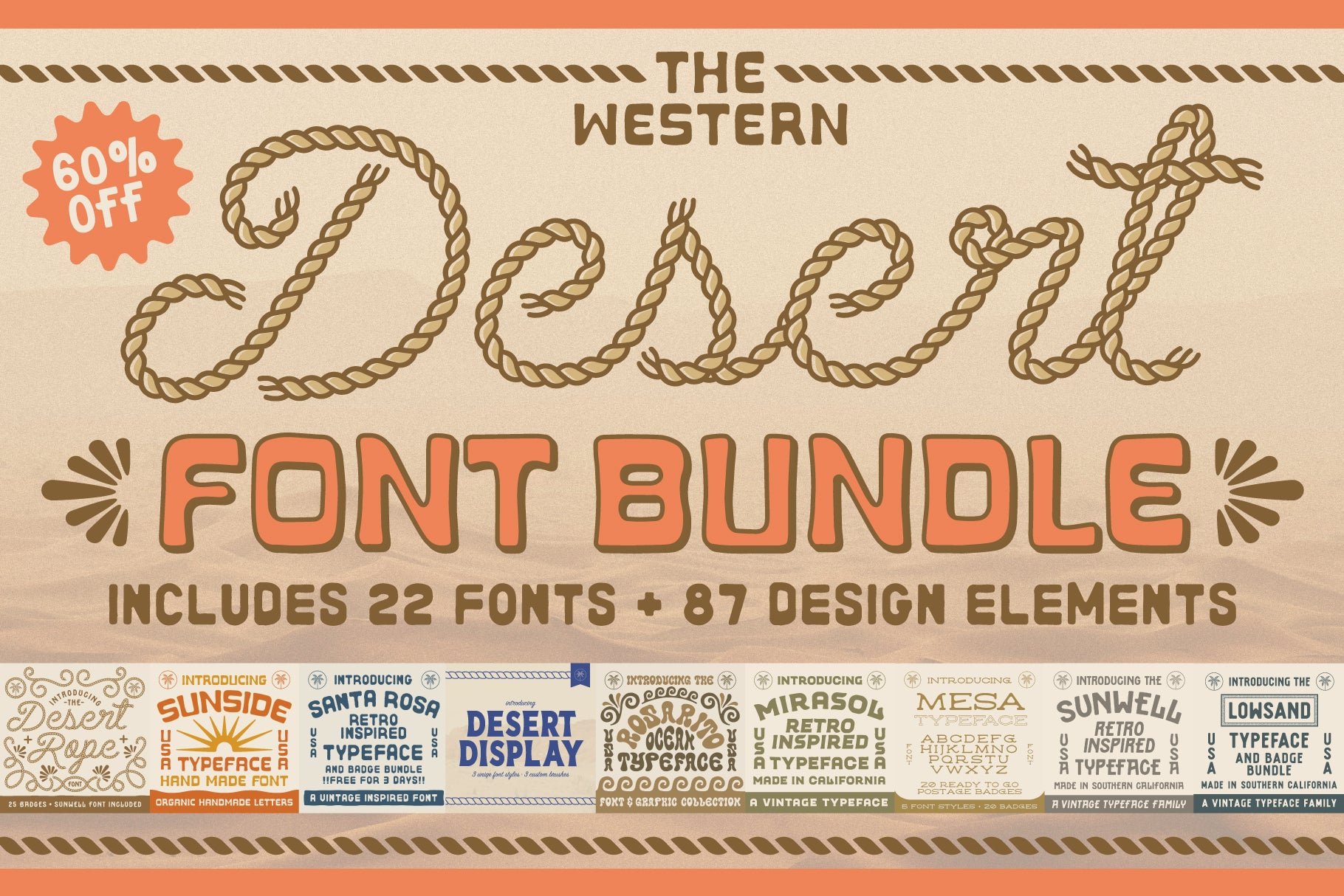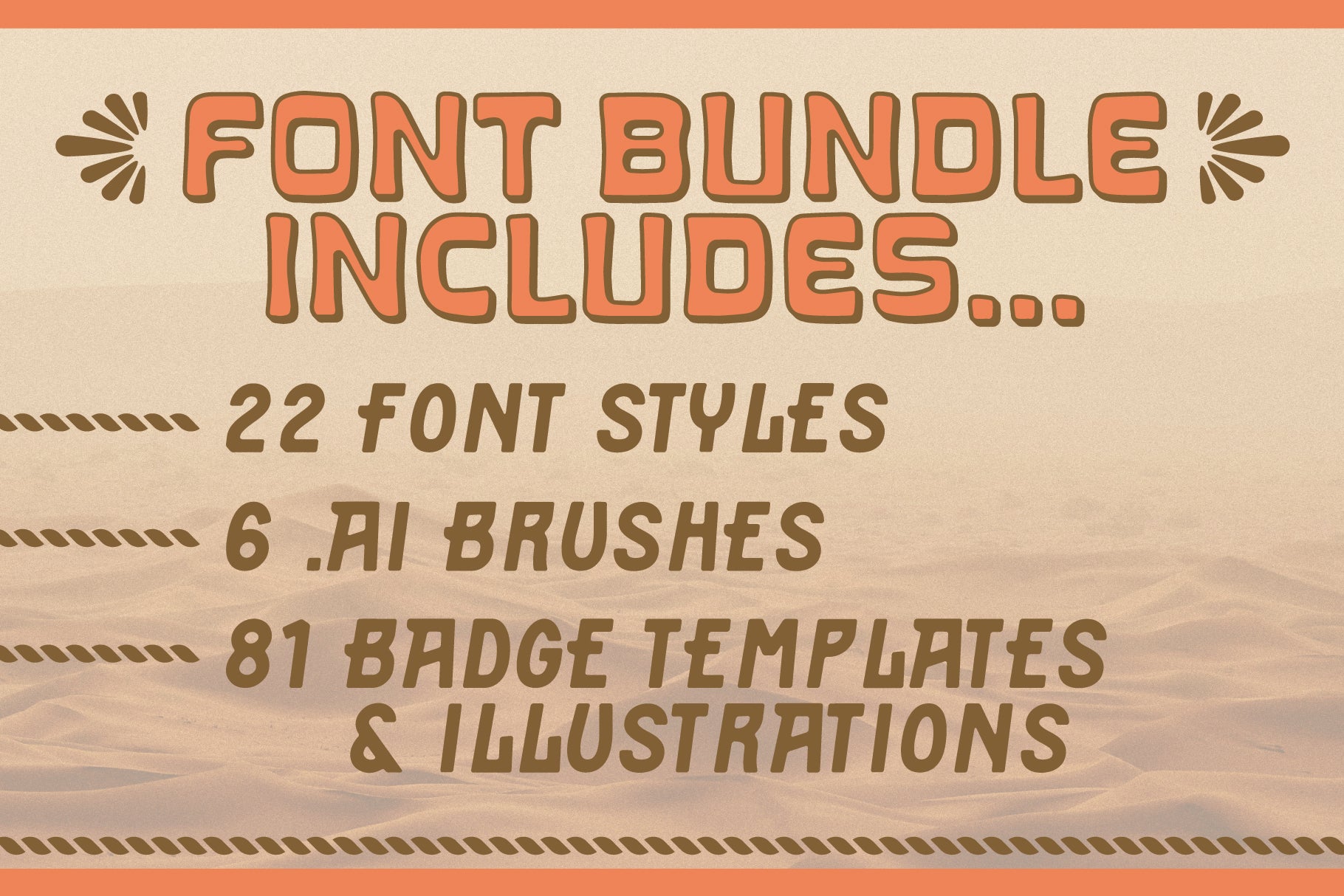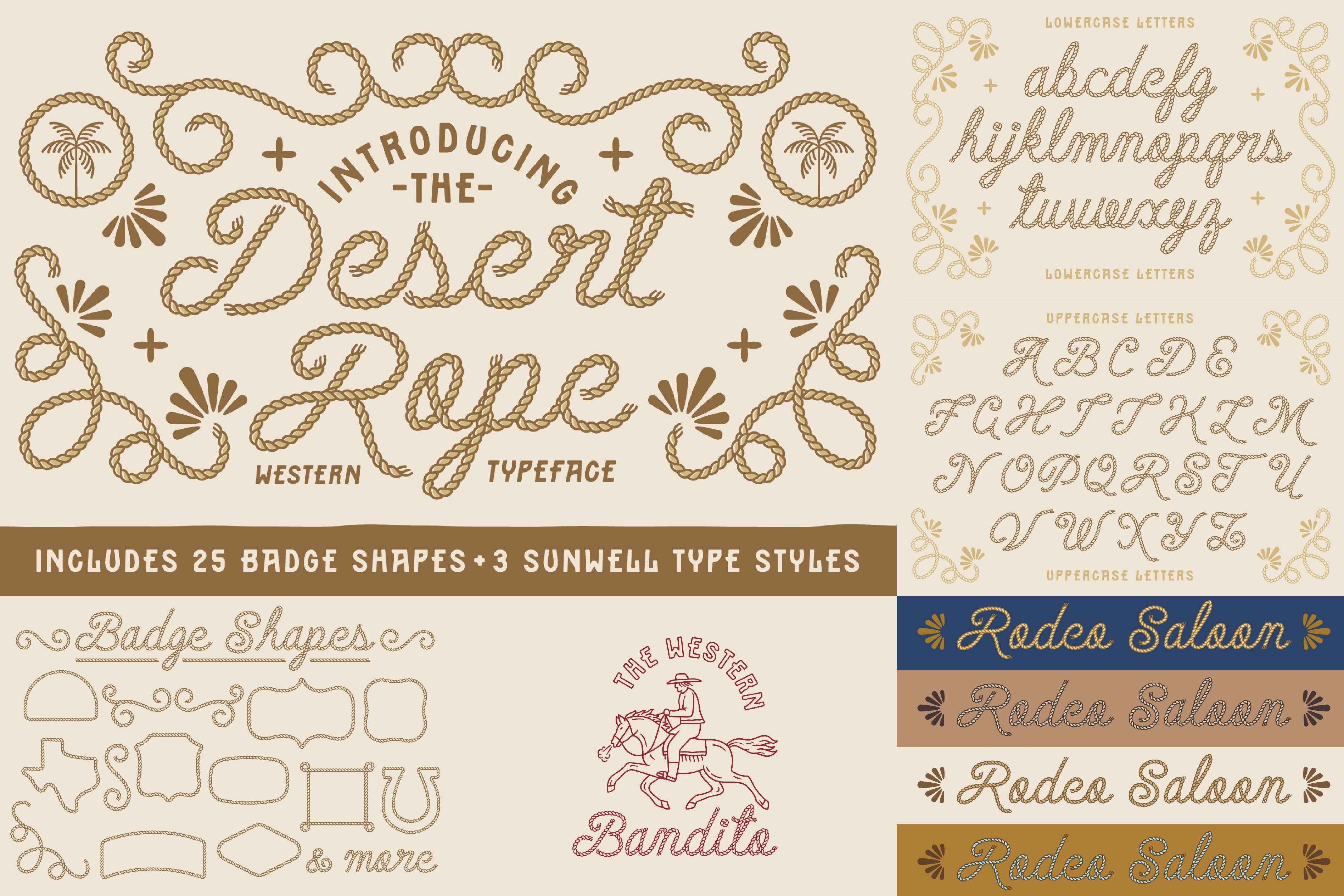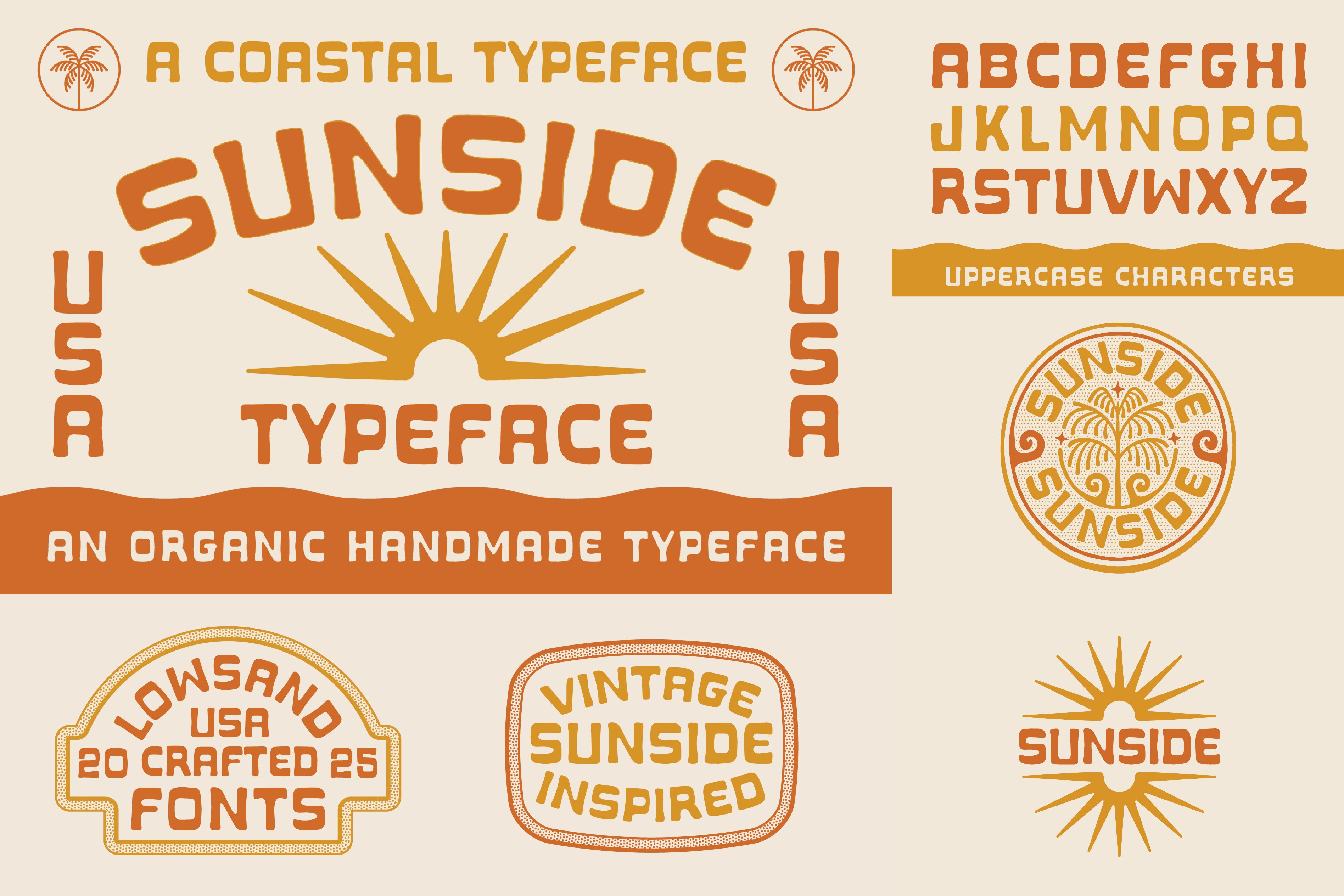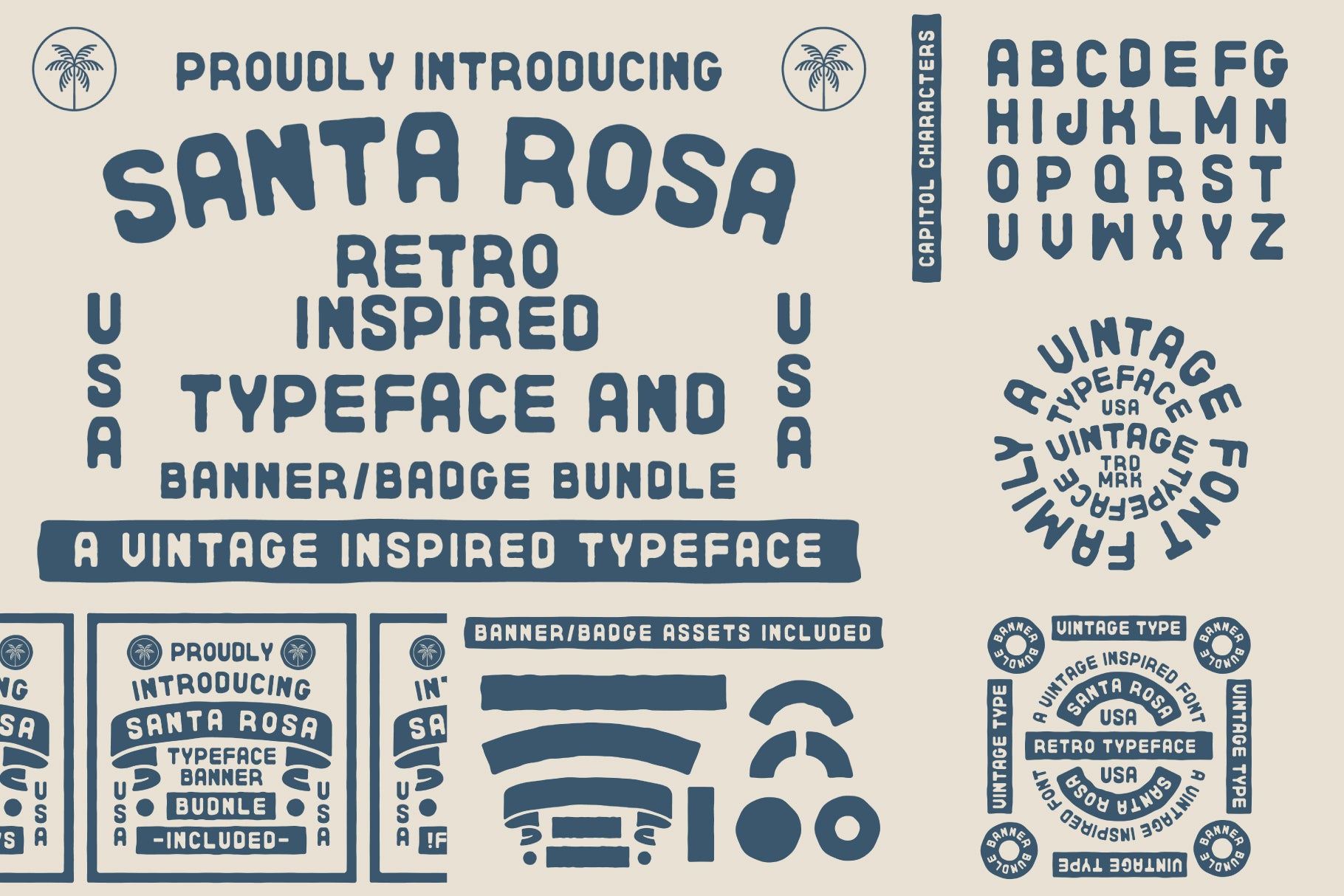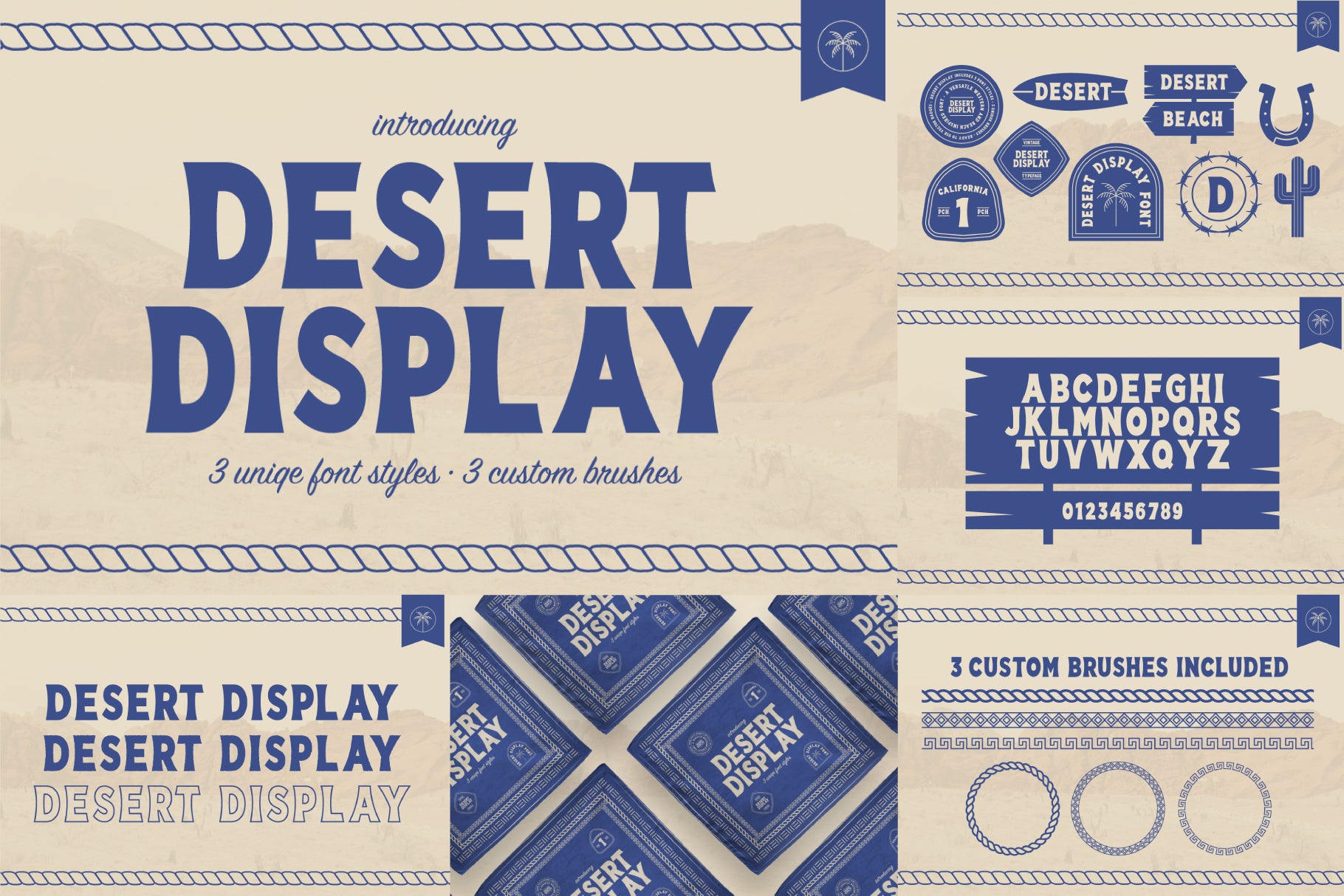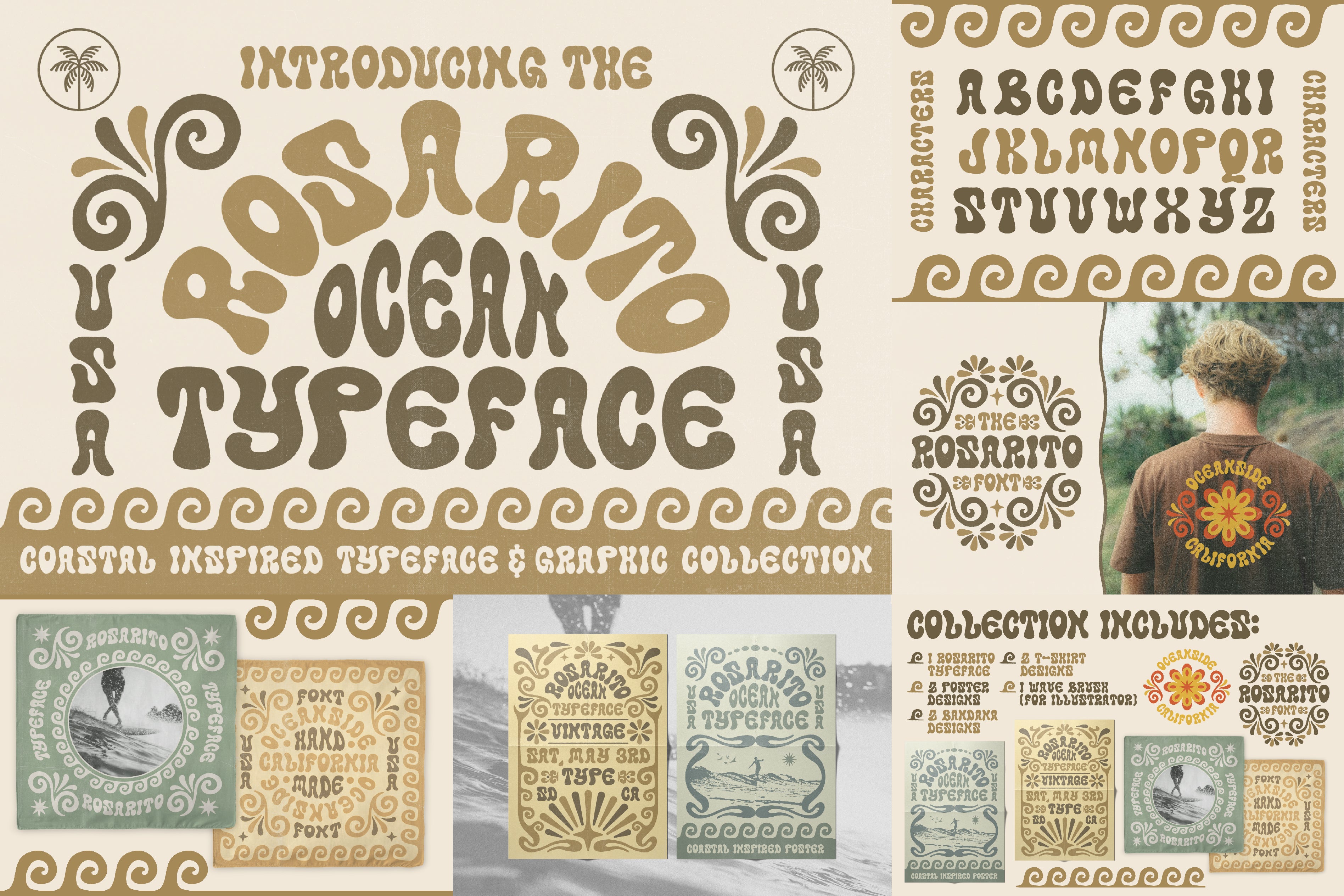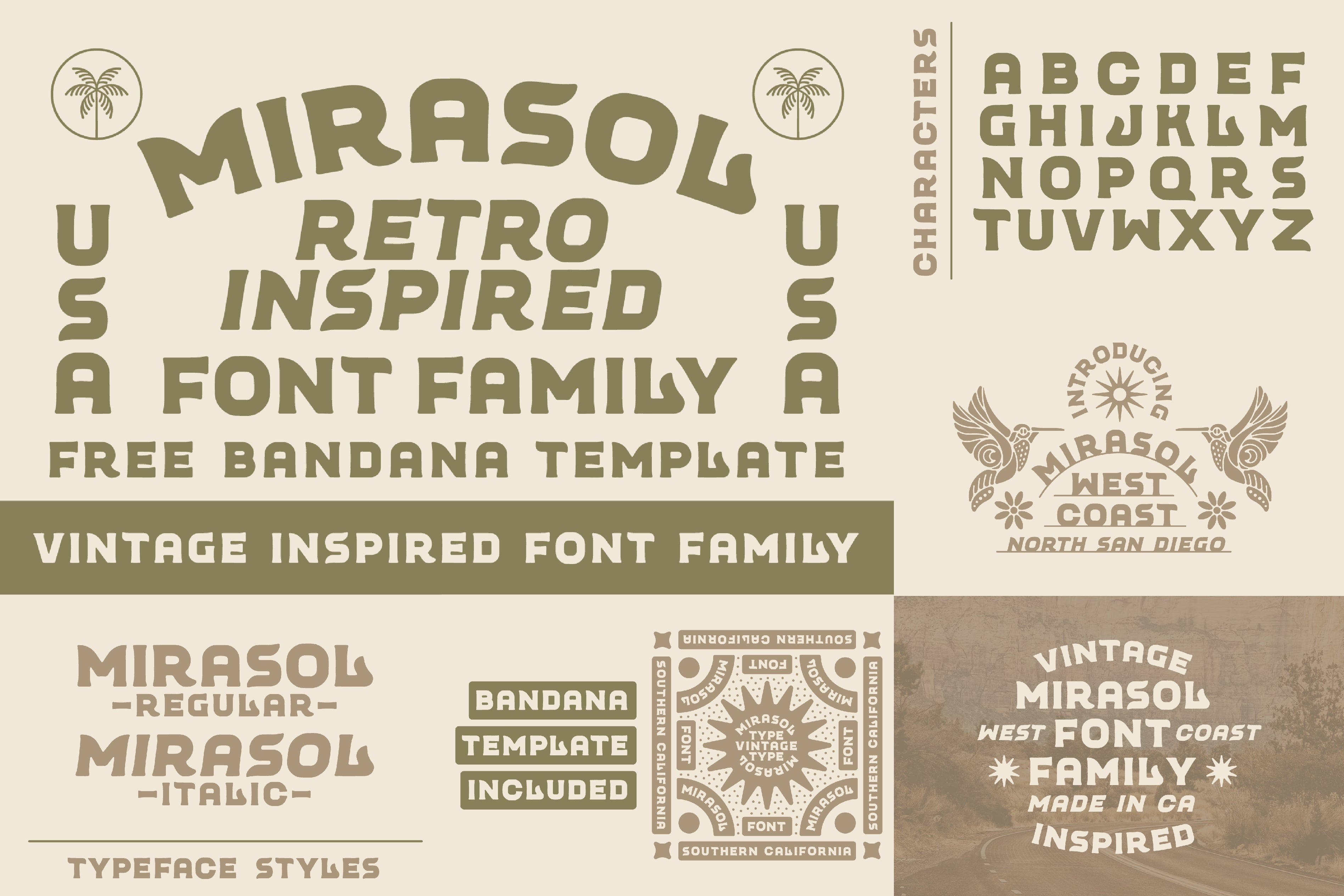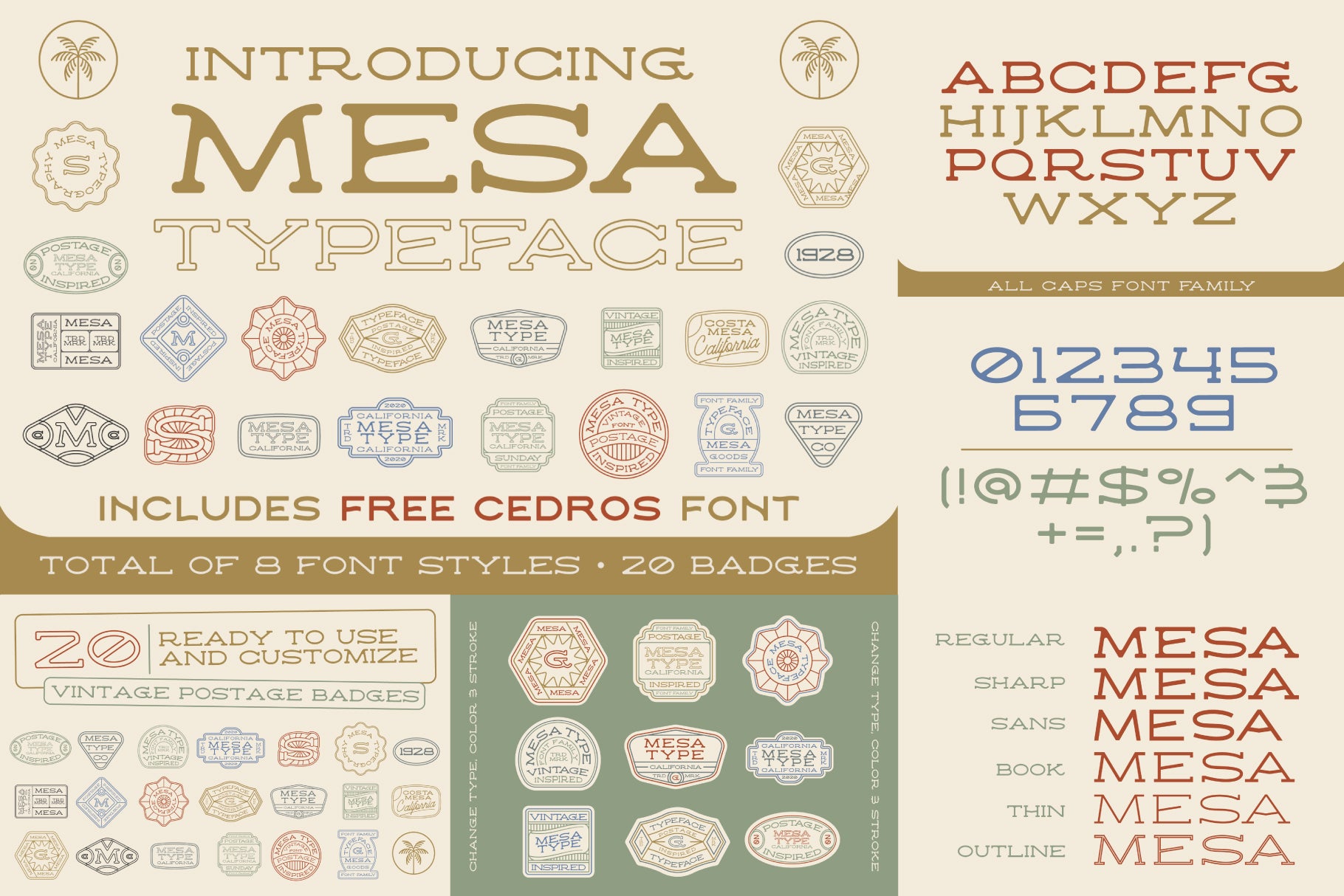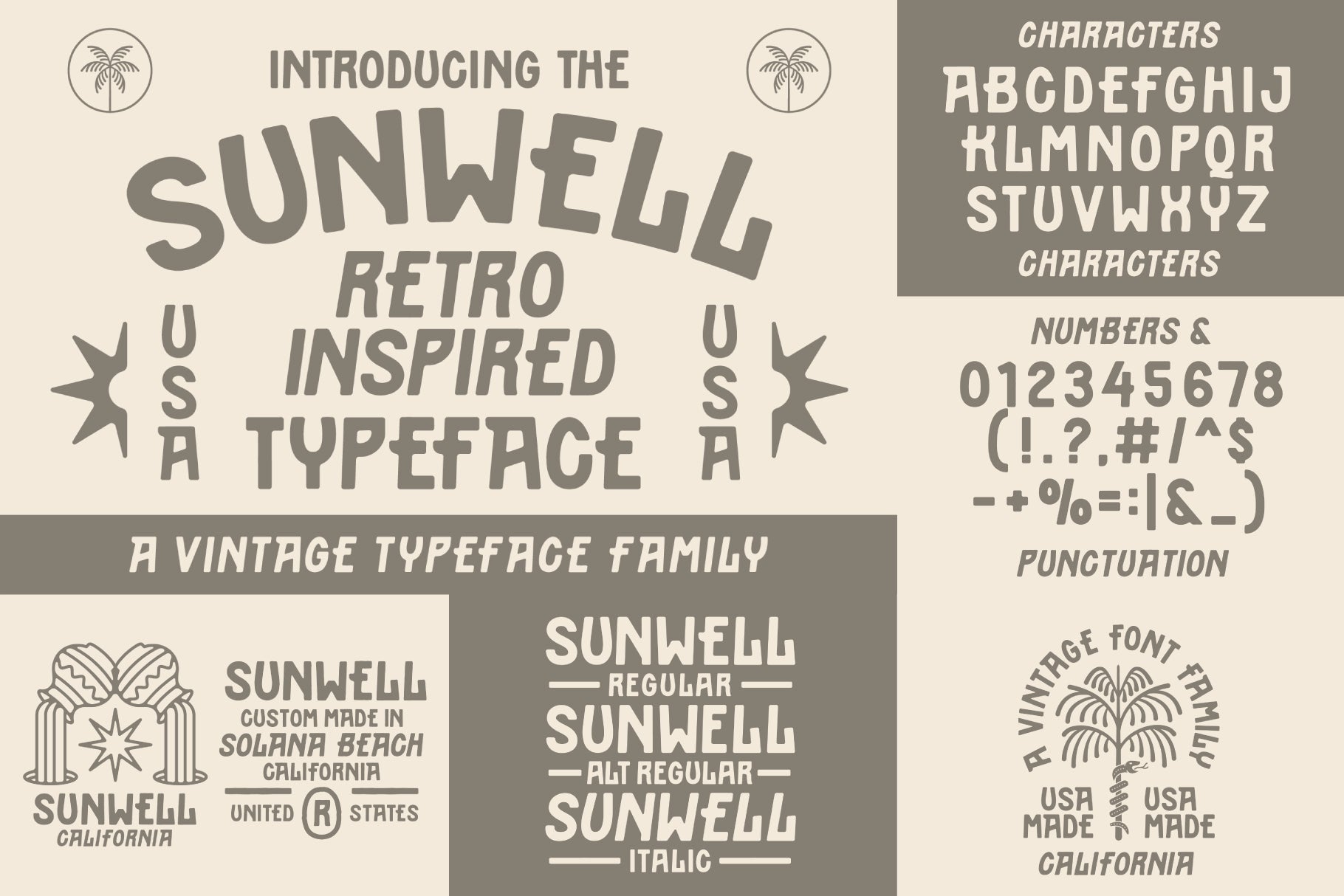
The Western Desert Font Bundle
22 fonts, 81 graphic templates & illustrations, 6 .AI Brushes
The Western Desert Font Bundle is a must-have collection of rugged, authentic western-style fonts from the NienowBrand type catalog. With 22 unique fonts, this bundle also includes 81 badge templates and illustrations, plus 6 Adobe Illustrator-compatible vector brushes. Whether you’re crafting a bold western design or adding a raw, gritty touch to your project, this bundle has everything you need to bring that to life.
Fonts Includes Are:
• Desert Rope Font
• Sunside Font
• Santa Rosa Font
• Desert Display Font
• Rosarito Font
• Mirasol Font
• Mesa Font
• Sunwell Font
• Lowsand Font